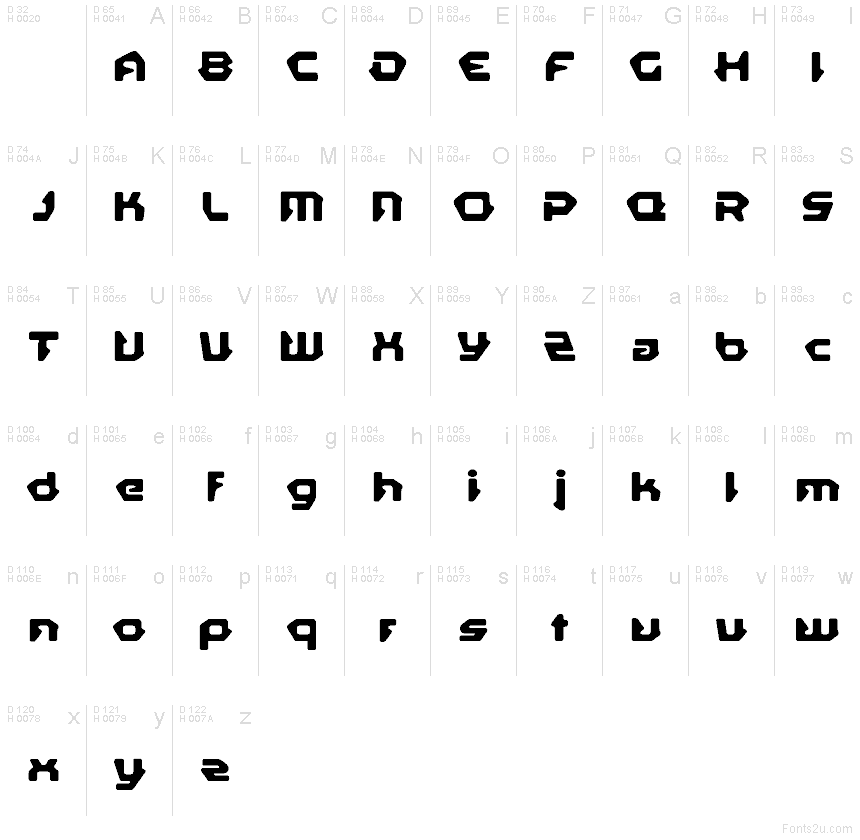
CS Revson Regular Demo
CS Revson font by Craft supply Co. is a free bold futuristic display font. Its trick is balance: chunky, beveled letterforms with angular cutaways feel high-tech, while the softened corners and wide apertures keep it readable and approachable. The rhythm is steady and modular without going sterile, so headlines land with impact but don’t shout.
Using CS Revson, you’ll get clean, sci‑fi energy for game titles, esports branding, tech product packaging, UI headers, event posters, and motion graphics. This free font shines when set large, with tight tracking for a compact, hardware‑like look. Simple pairing tip: match it with a thin, neutral geometric sans for body copy to let the futuristic shapes lead.